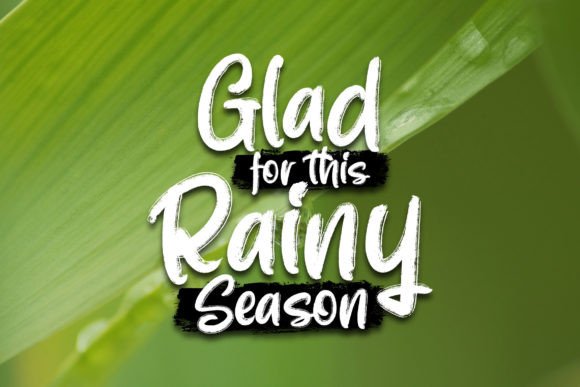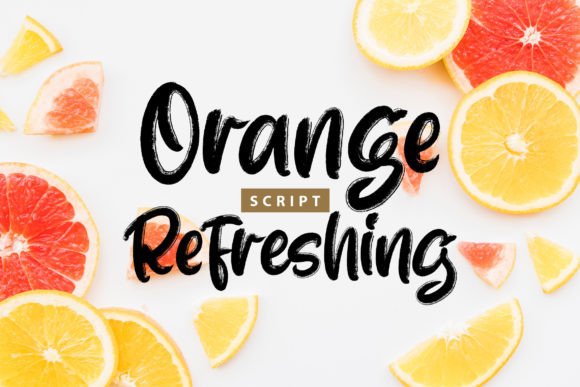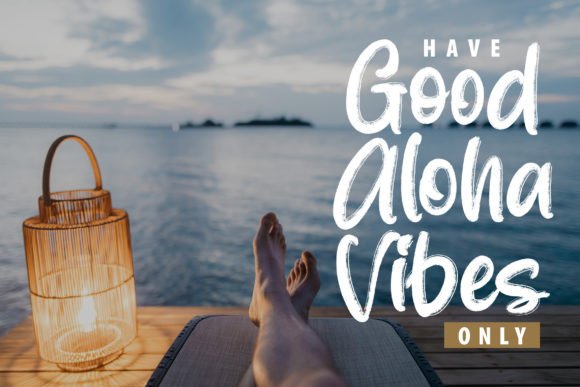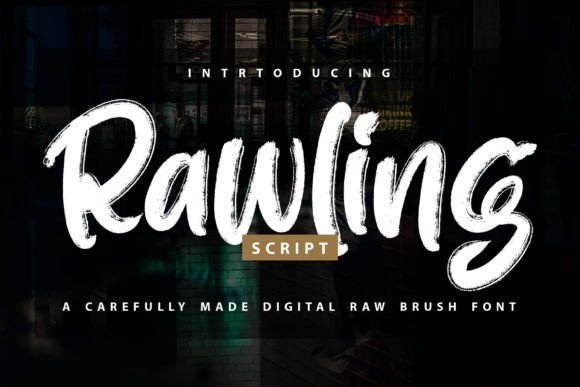
Introduction to Rawling Font
Rawling is a cool, textured brush handwritten font.
Masterfully designed to become a true favorite, this font has the potential to bring each of your creative ideas to the highest level Rawling is PUA encoded which means you can access all the glyphs and ligatures with ease.